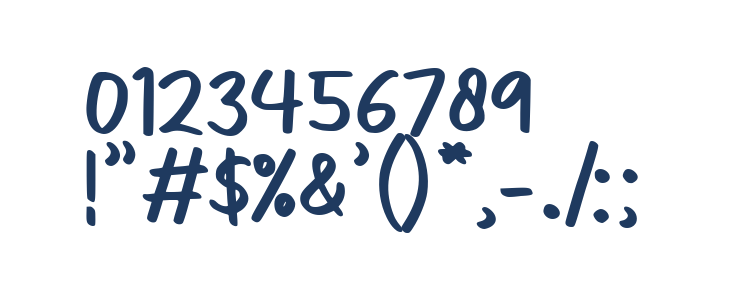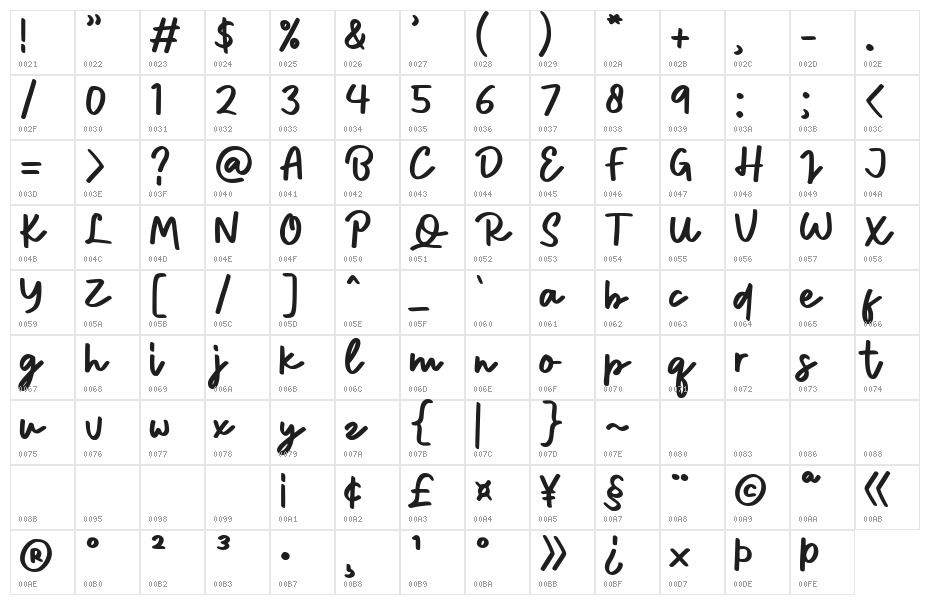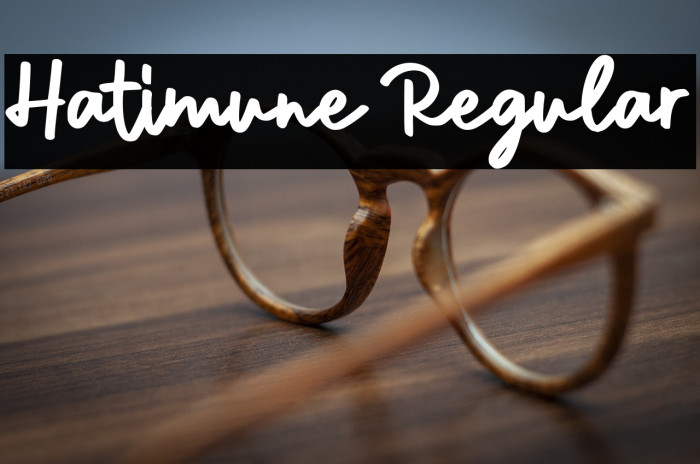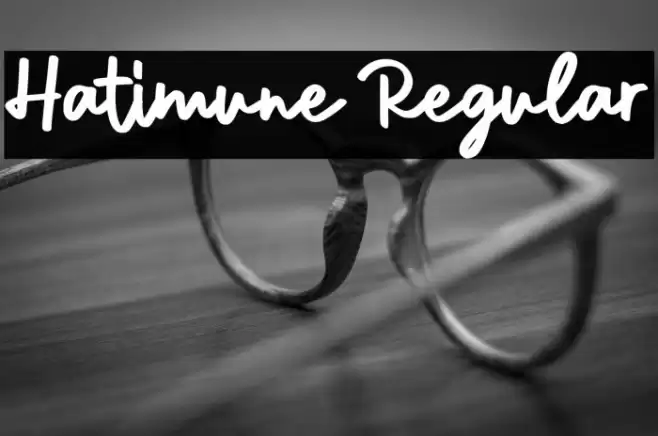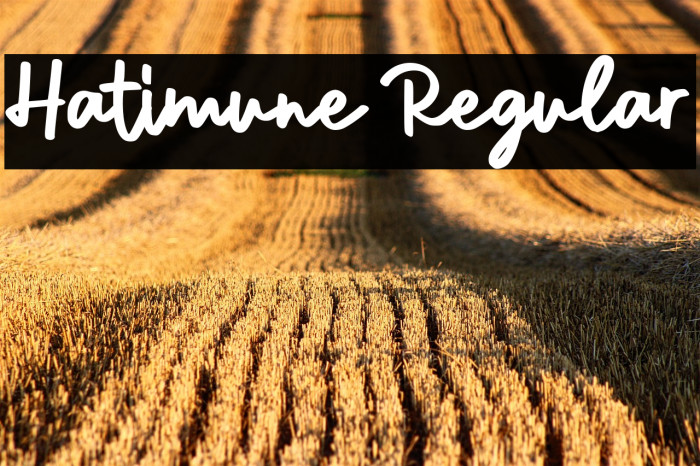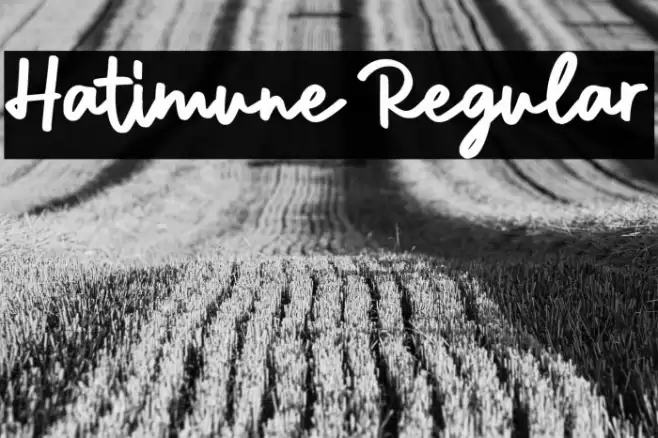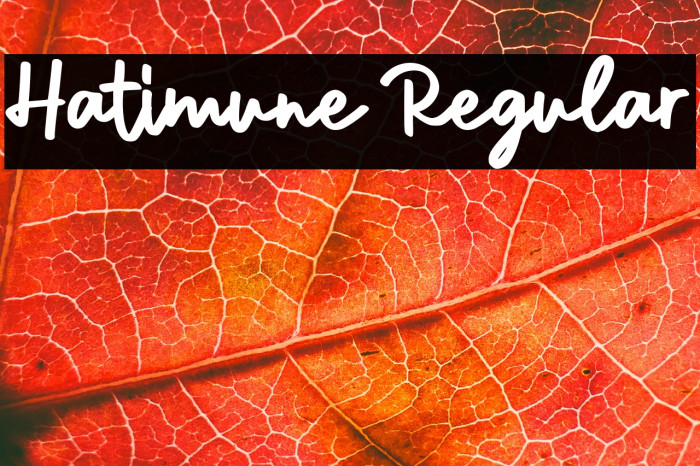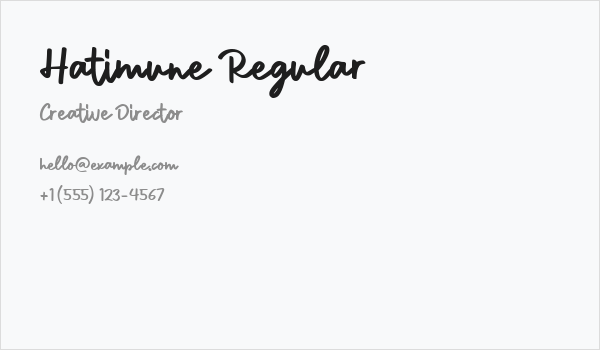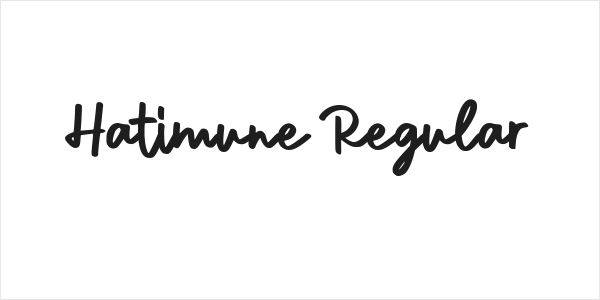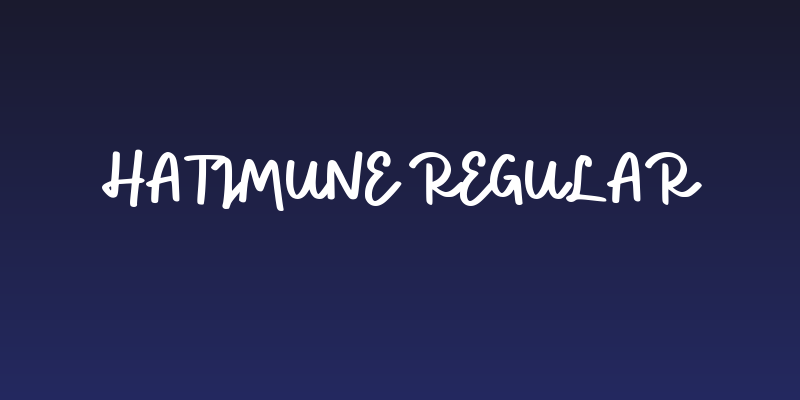
Hatimune Regular Font
Hatimune Regular Description
This font features a bold, handwritten style with a playful and casual appearance. The letters are slightly slanted, giving it a dynamic and energetic feel. The strokes are thick and consistent, providing a strong presence on the page. The uppercase and lowercase letters are well-balanced, with a smooth flow that mimics natural handwriting. The numbers and special characters maintain the same lively style, making it versatile for various uses. The overall design is cohesive, with a friendly and approachable aesthetic.